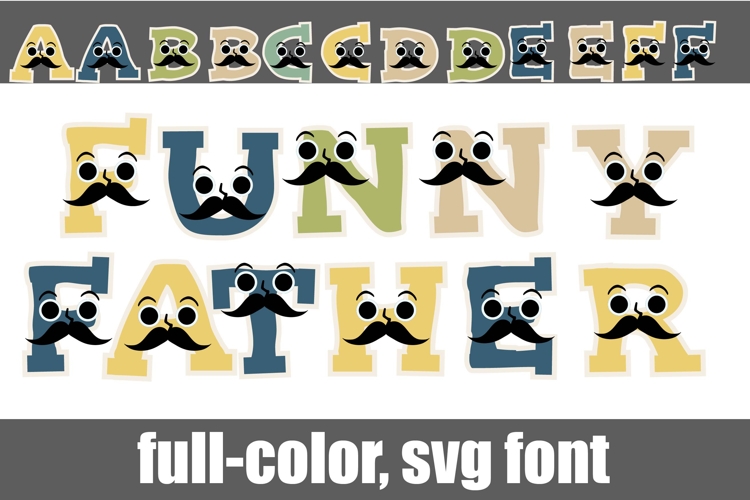
Funny Father Too Color Font
This full-color, serif font features mustaches throughout. There is an alt case of additional colors of each letter that you can access through your system's character map.